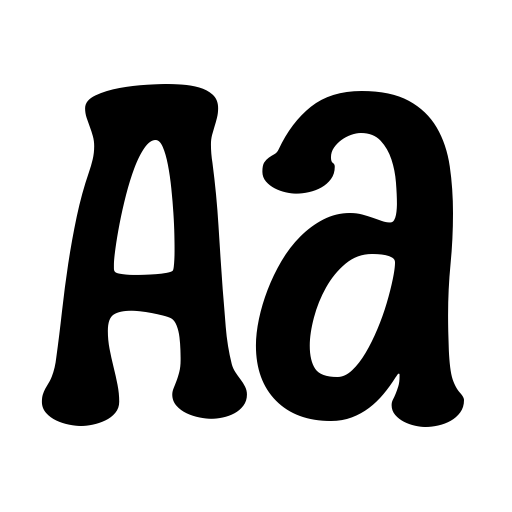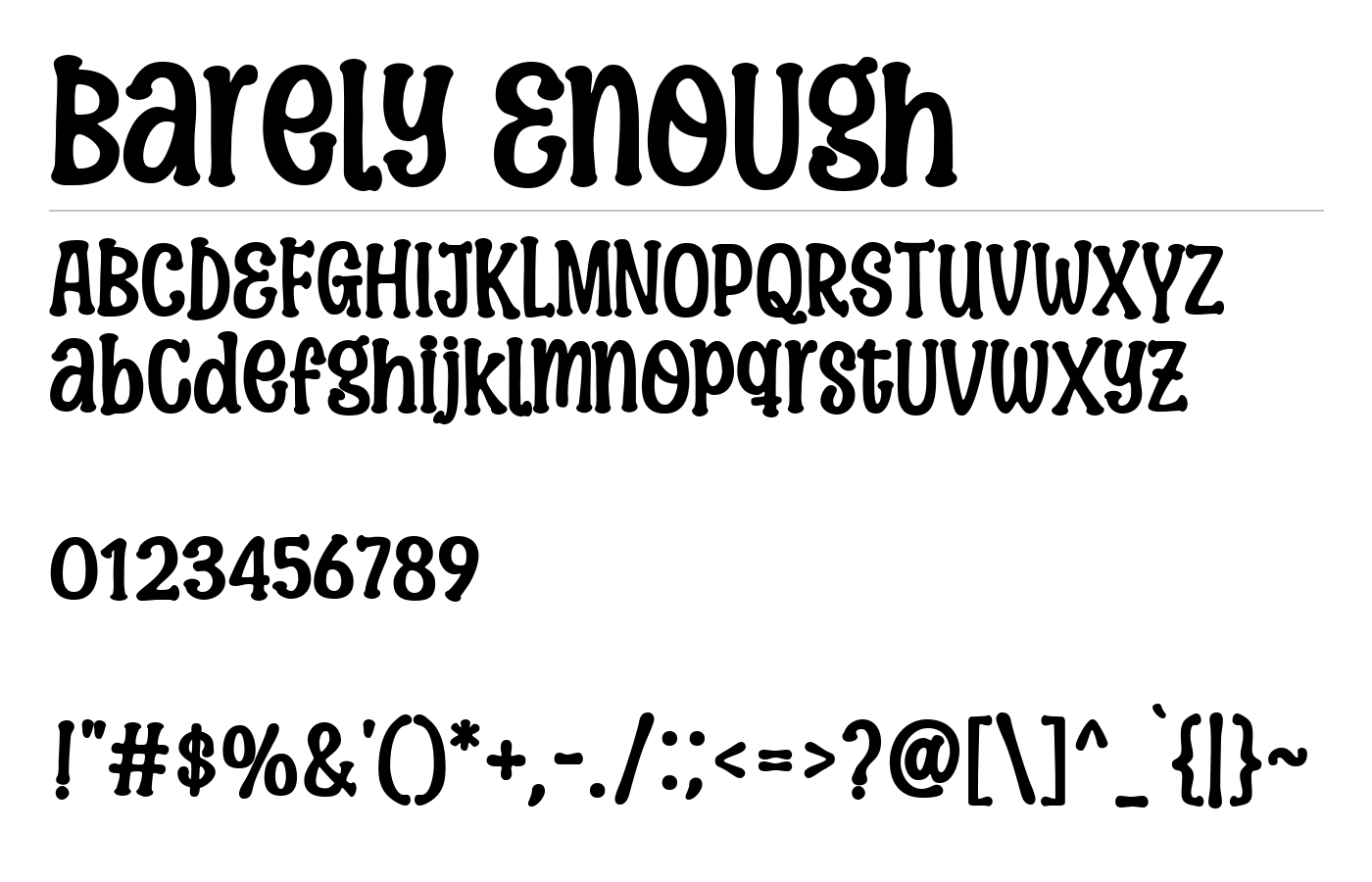
Barely Enough is a playful and quirky serif font with a bold weight and moderate width, featuring rounded, irregular letterforms that give it a hand-crafted, whimsical feel. Its slightly condensed style and unique details like the curled tails and varied stroke endings make it perfect for eye-catching headlines, packaging, or creative projects that want to convey personality and charm. This font works well in contexts where a fun, informal tone is desired, combining readability with a distinctive, friendly style.
Barely Enough Font
About Barely Enough Font